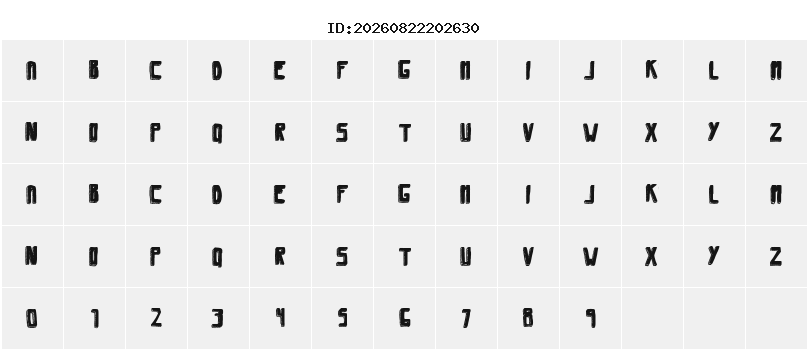
Savia Filled Shadow Preview
• Font Name: Savia Filled Shadow
• Font ID: Savia Filled Shadow:Version 1.00
• Full Font Name: Savia Filled Shadow // ANTIPIXEL.COM.AR
• Version: Version 1.00 February 23, 2011, initial release
• PostScript Name: Savia Filled Shadow // ANTIPIXEL.COM.AR
• Designer: Julia Martinez Diana. ANTIPIXEL
About Savia Filled Shadow.ttf
Savia Filled Shadow.ttf is a modern, elegant sans-serif font designed for ultimate readability and visual harmony. Perfect for branding, headlines, web design, and print materials.